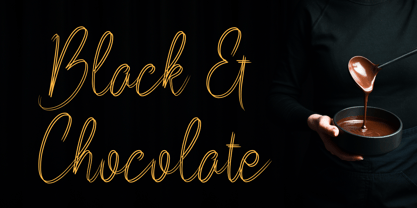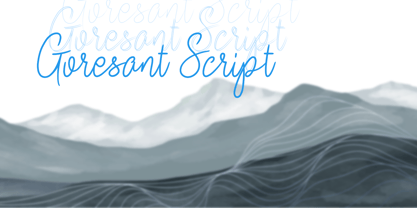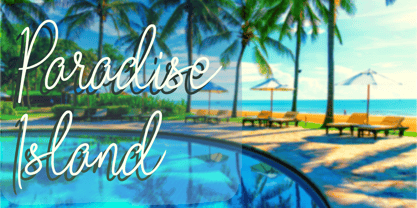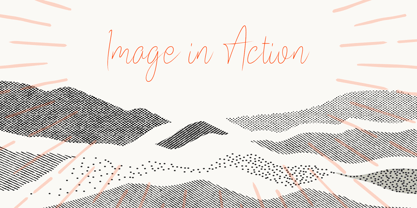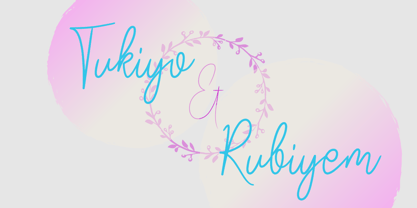
Goresant Script
La familia tipográfica Goresant Script fue diseñada por Tri Kuncoro y publicada por Greentrik6789. Goresant Script contiene 3 estilos y opciones de paquete familiar. Más información sobre esta familia
Introducing a stunning cursive script font that showcases elegant, flowing strokes. This font features beautifully elongated letterforms, creating a graceful and sophisticated look.
The smooth, connected strokes give it a natural handwritten appearance, making it perfect for various applications such as branding, invitations, and editorial design. With a harmonious blend of uppercase and lowercase letters, this font maintains a consistent slant, adding a dynamic flair to your projects.
Ideal for enhancing the aesthetic of any design, it brings a touch of elegance and charm to your typography.
I'm Tri Kuncoro, a type designer from a small town in Central Java, Indonesia. As the founder and creative mind behind Greentrik6789, I specialize in crafting bold, expressive display fonts tailored for contemporary applications — from logos and posters to impactful branding. My recent releases, such as Super Car (July 19, 2022) and Super Car Variable (November 19, 2024), showcase my commitment to strong aesthetics and versatile functionality, incorporating cutting-edge variable font technology. Other standout creations like Standhill, Moggen, Rise, and Ragiel exemplify my unwavering dedication to form, rhythm, and visual impact, making Greentrik6789 a unique player in the type design industry.